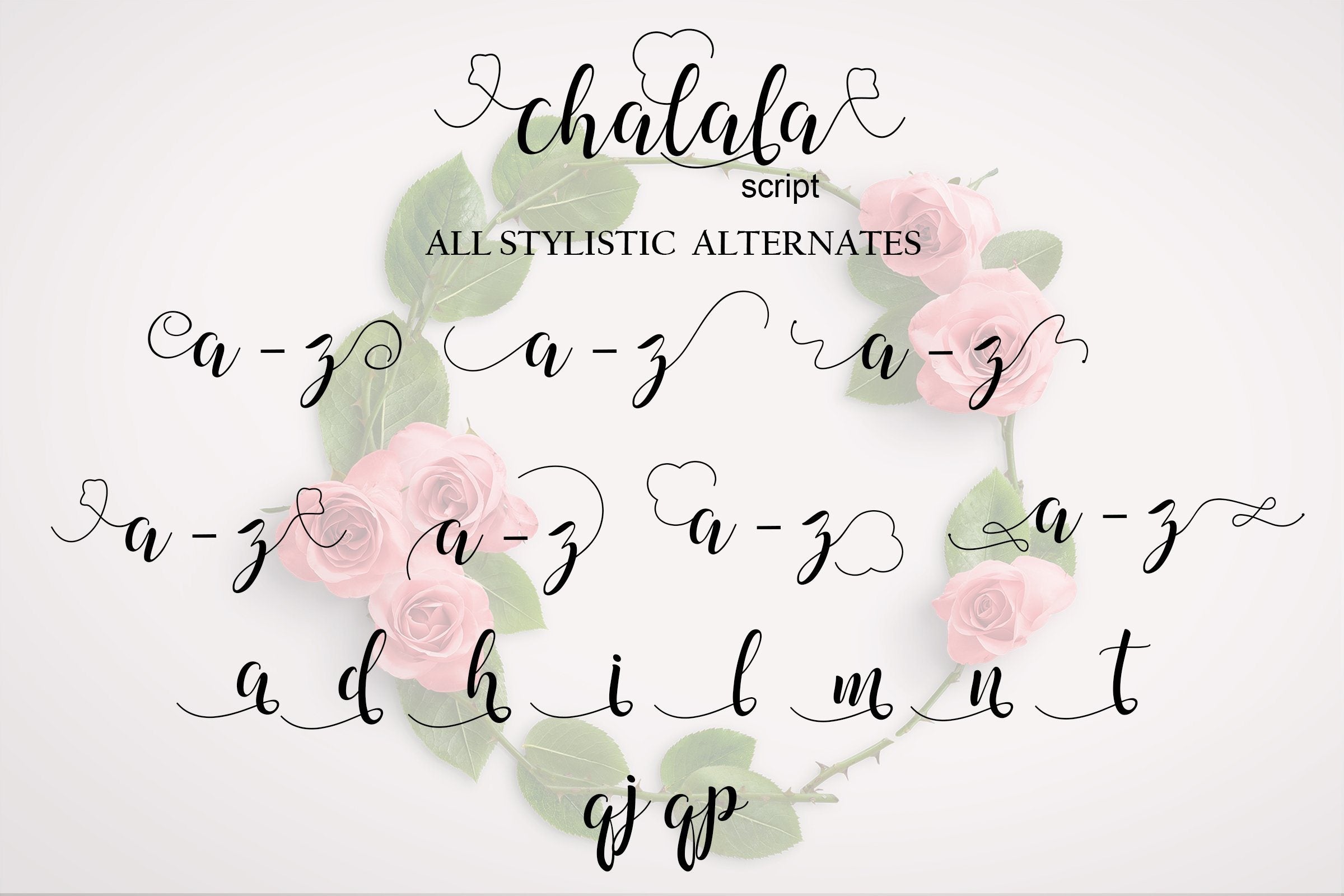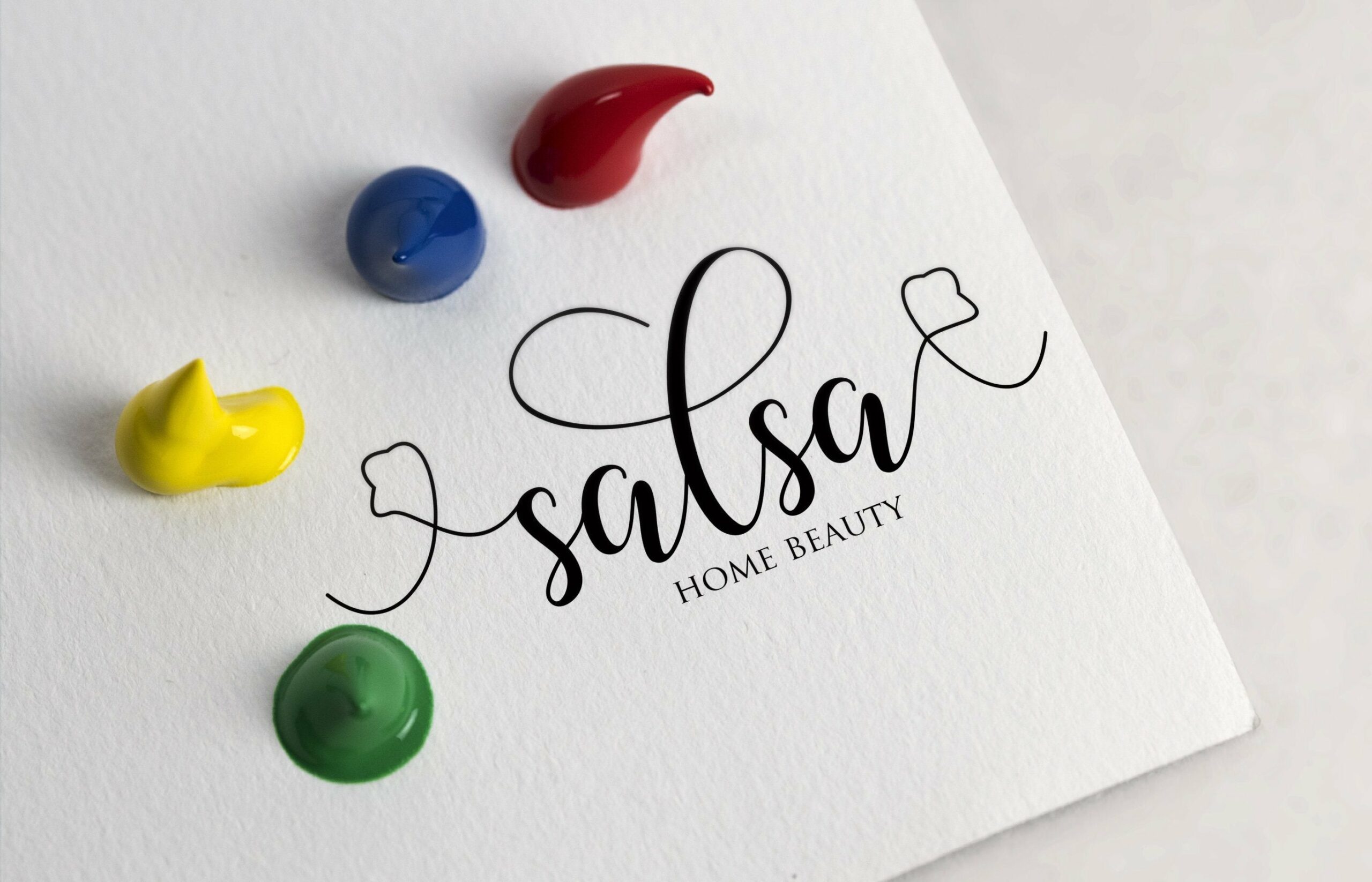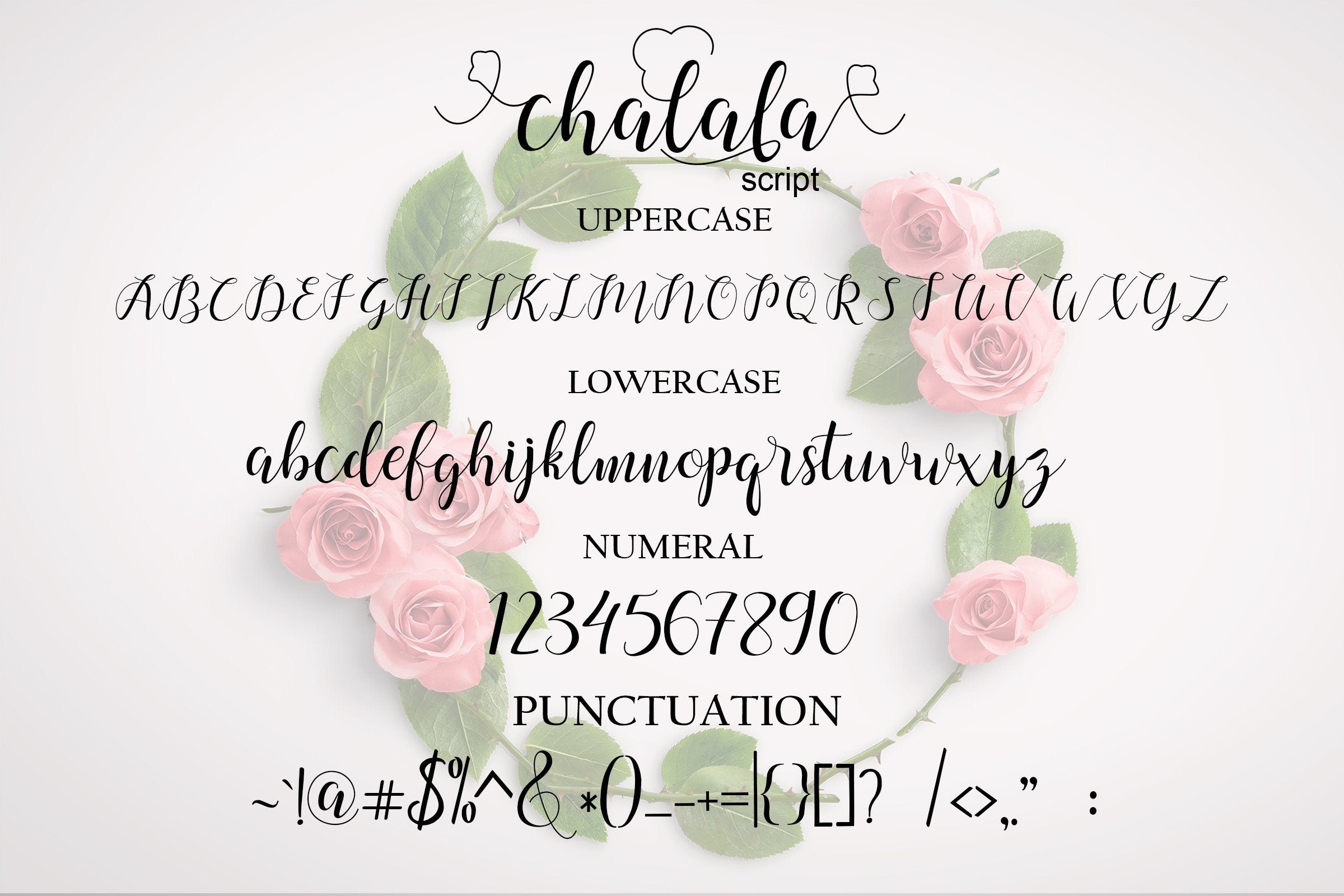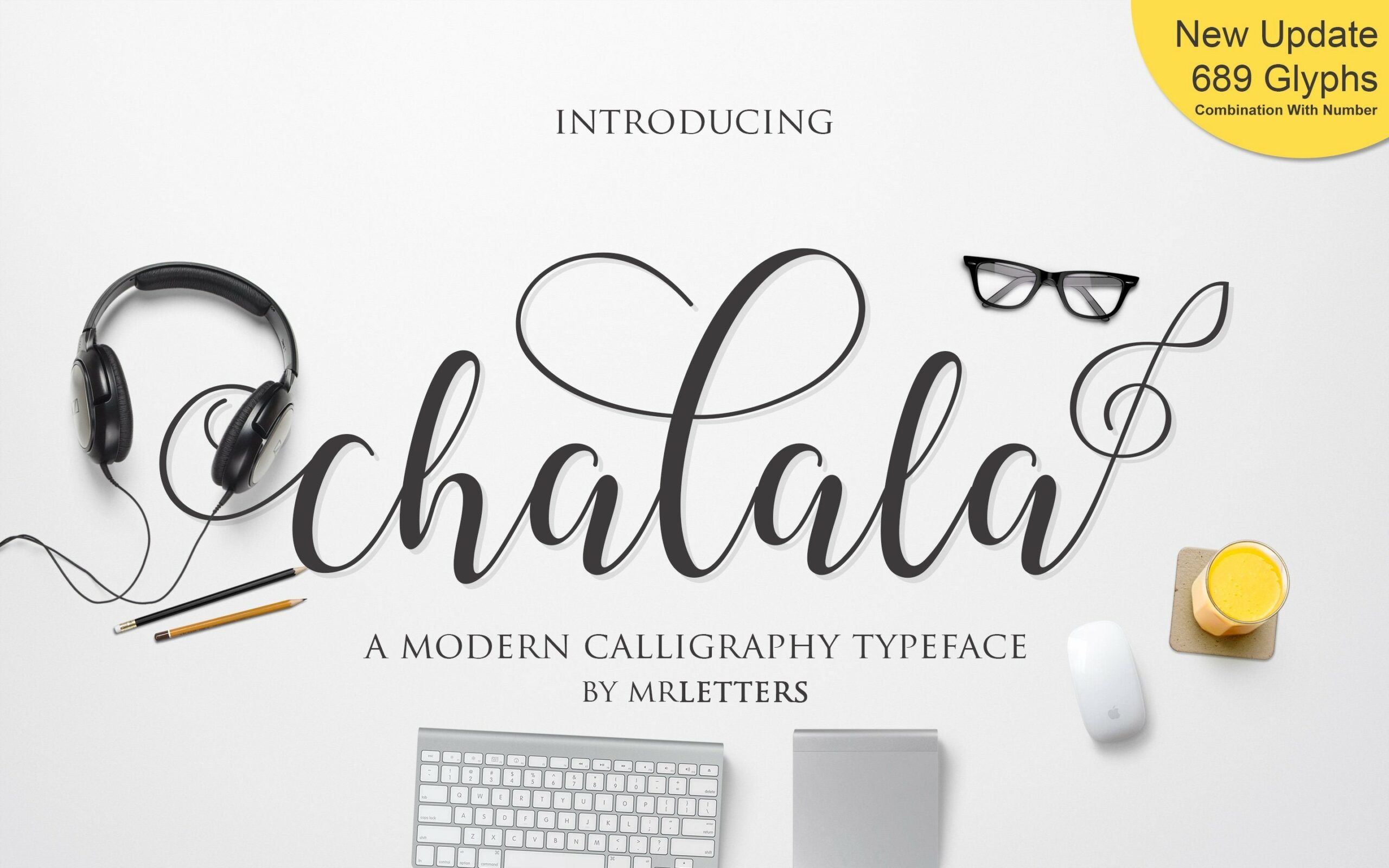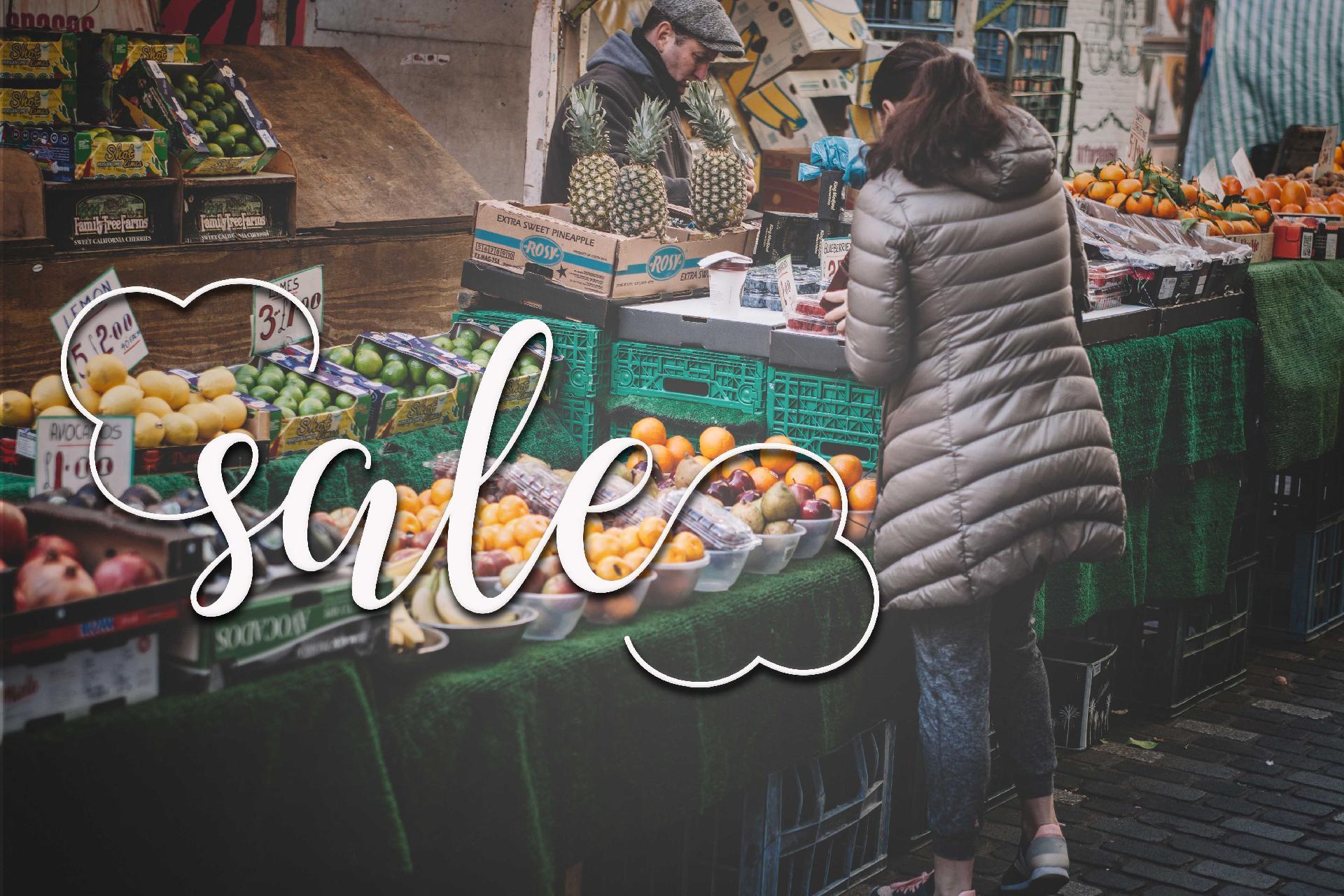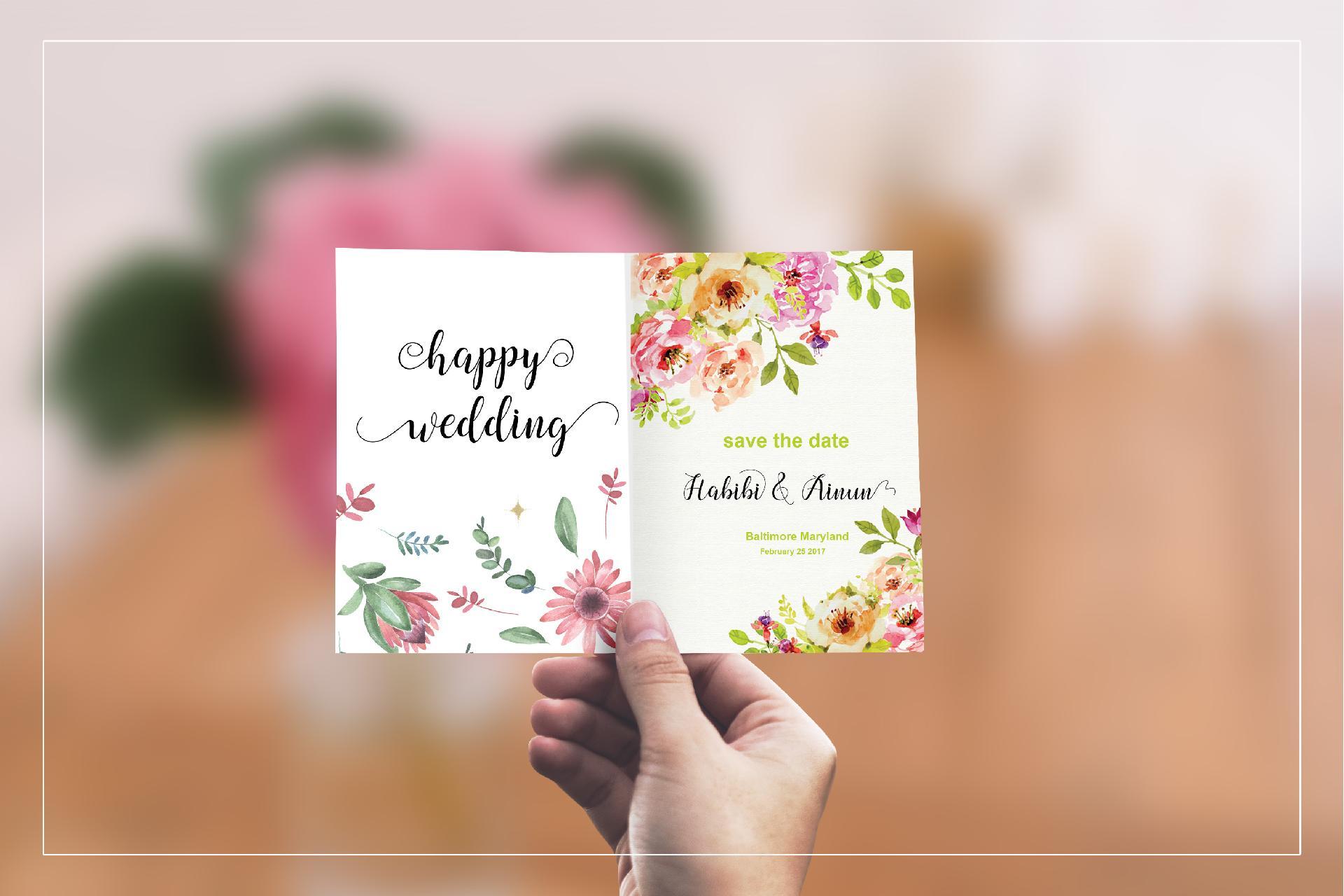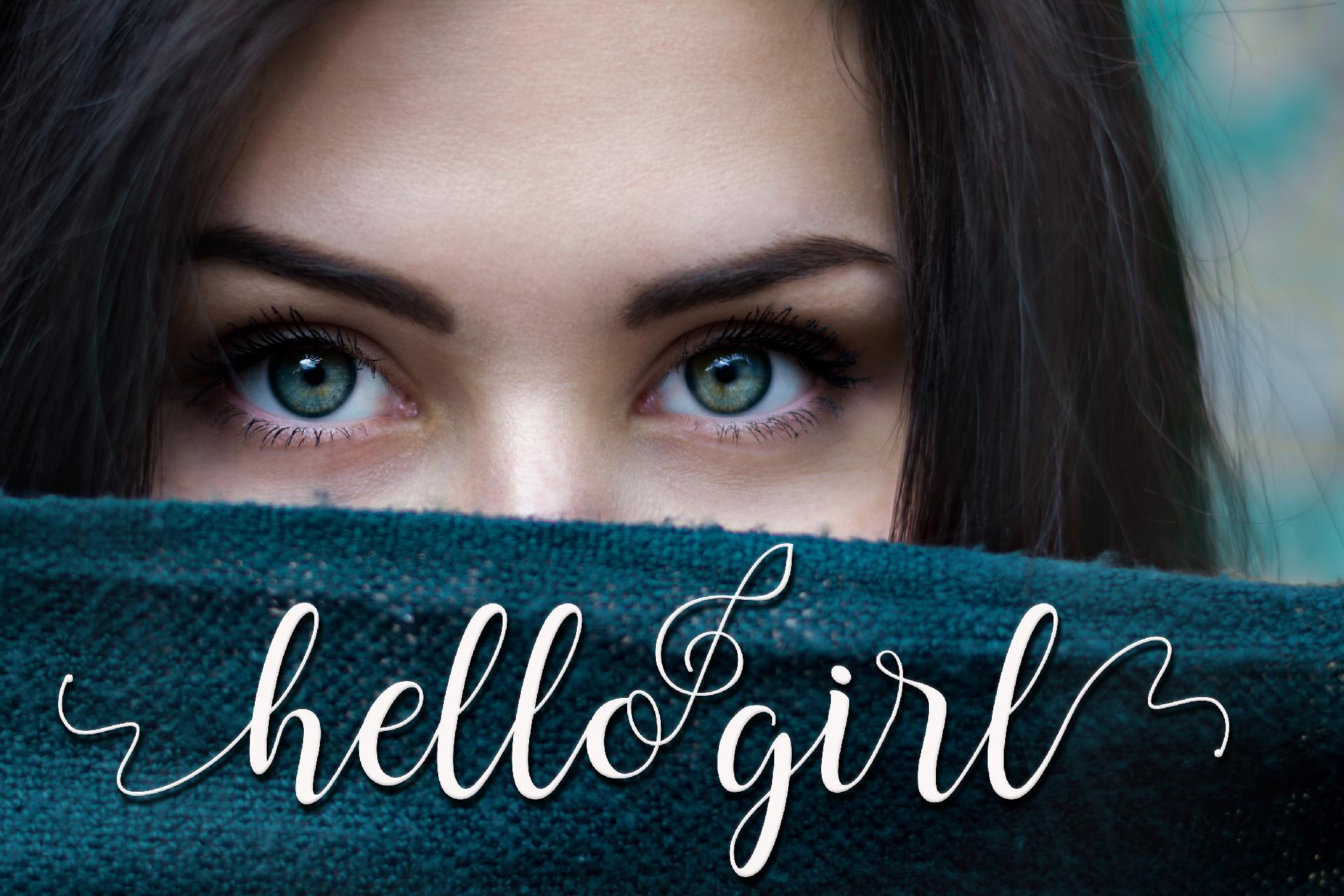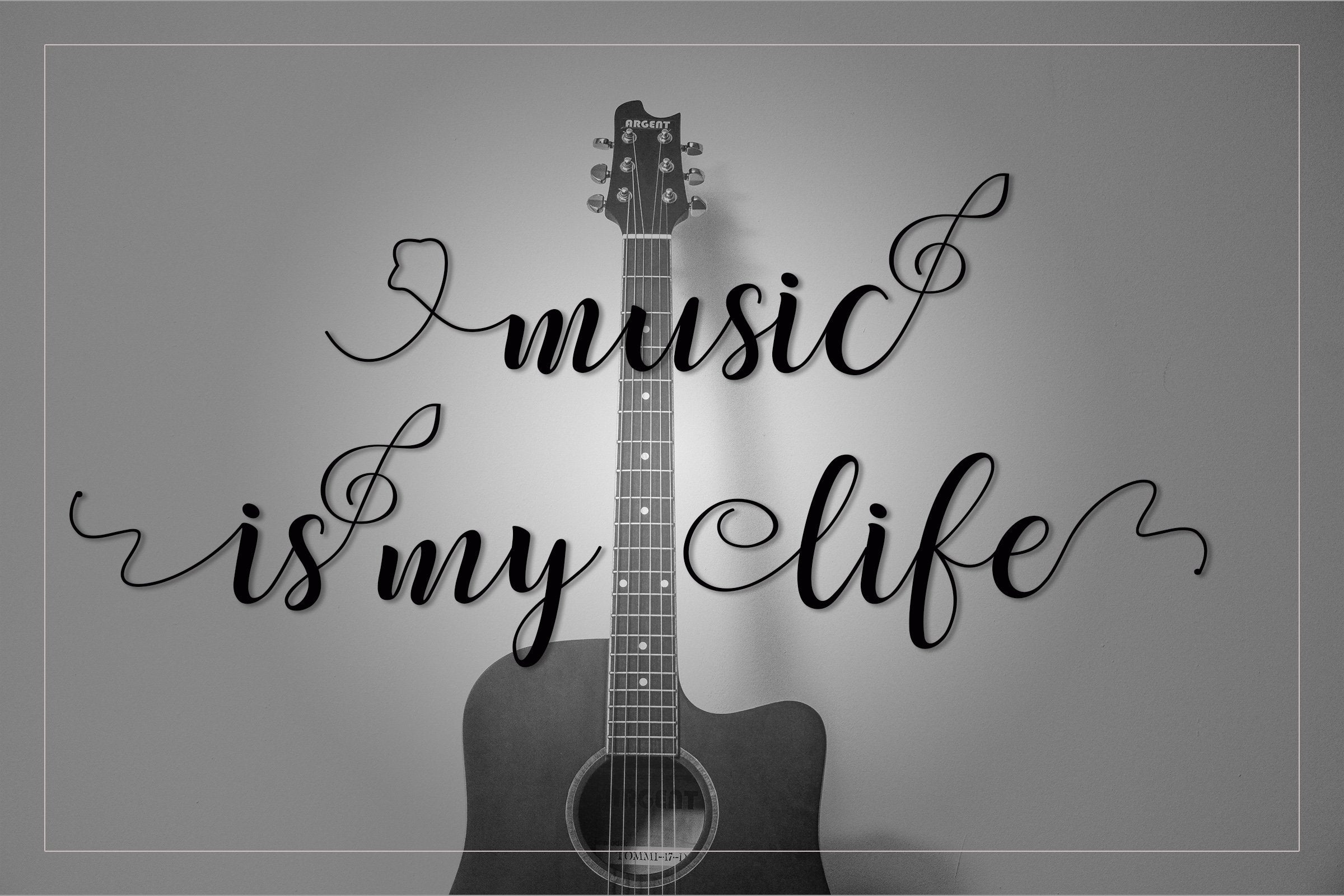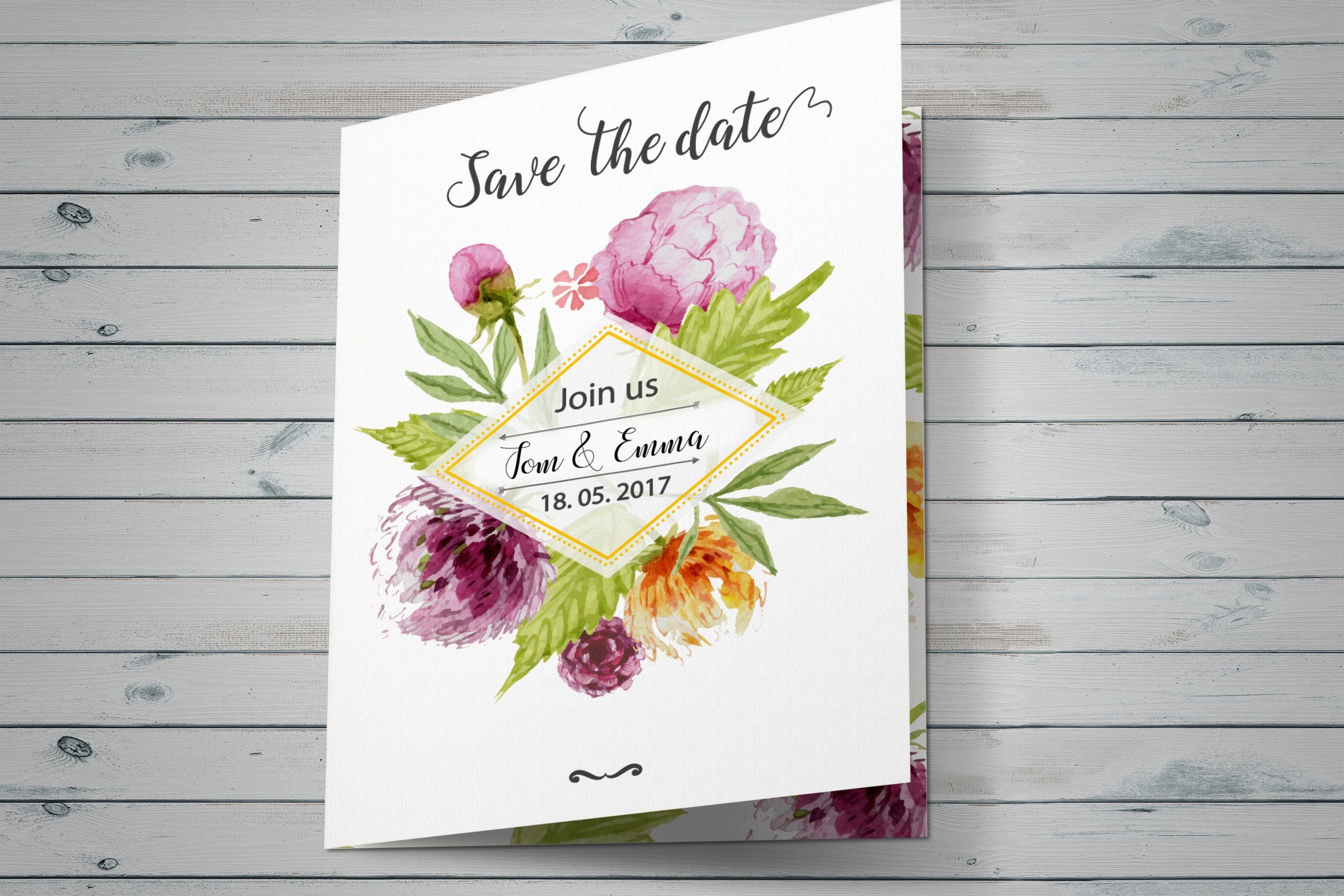
Chalala Script
About Chalala Script
Introducing Chalala Script a new fresh & modern script with a handmade calligraphy style, decorative characters and a dancing baseline! So beautiful on invitation like greeting cards, branding materials, business cards, quotes, posters, and more!! Chalala Script come with 656 glyphs. The alternative characters were divided into several Open Type features such as Swash, Stylistic Sets, Stylistic Alternates, Contextual Alternates. The Open Type features can be accessed by using Open Type savvy programs such as Adobe Illustrator, Adobe InDesign, Adobe Photoshop Corel Draw X version, And Microsoft Word. And this Font has given PUA unicode (specially coded fonts). so that all the alternate characters can easily be accessed in full by a craftsman or designer. Chalala Script: Uppercase & Lowercase International Languange & Symbols Support Punctuation & Number PUA Unicode Range Standard Stylistic Alternates Stylistic Set 1-16 Character Variant Contextual. The ZIP file are include the following : Chalala Script Regular.OTF Chalala Script Regular.TTF Chalala Script Italic. OTF Chalala Script Italic. TTF Chalala Script Web Font (eot, svg, woff, woff2) If you don’t have a program that supports OpenType features such as Adobe Illustrator and CorelDraw X Versions, you can access all the alternate glyphs using Font Book (Mac) or Character Map (Windows). If you have any question, don’t hesitate to contact me by email  Thanks and happy designing 🙂 Thank You for purchase! Introducing Chalala Script a new fresh & modern script with a handmade calligraphy style, decorative characters and a dancing baseline! So beautiful on invitation like greeting cards, branding materials, business cards, quotes, posters, and more!! Chalala Script come with 656 glyphs. The alternative characters were divided into several Open Type features such as Swash, Stylistic Sets, Stylistic Alternates, Contextual Alternates. The Open Type features can be accessed by using Open Type savvy programs such as Adobe Illustrator, Adobe InDesign, Adobe Photoshop Corel Draw X version, And Microsoft Word. And this Font has given PUA unicode (specially coded fonts). so that all the alternate characters can easily be accessed in full by a craftsman or designer. Chalala Script: Uppercase & Lowercase International Languange & Symbols Support Punctuation & Number PUA Unicode Range Standard Stylistic Alternates Stylistic Set 1-16 Character Variant Contextual. The ZIP file are include the following : Chalala Script Regular.OTF Chalala Script Regular.TTF Chalala Script Italic. OTF Chalala Script Italic. TTF Chalala Script Web Font (eot, svg, woff, woff2) If you don’t have a program that supports OpenType features such as Adobe Illustrator and CorelDraw X Versions, you can access all the alternate glyphs using Font Book (Mac) or Character Map (Windows). If you have any question, don’t hesitate to contact me by email  Thanks and happy designing 🙂 Thank You for purchase!